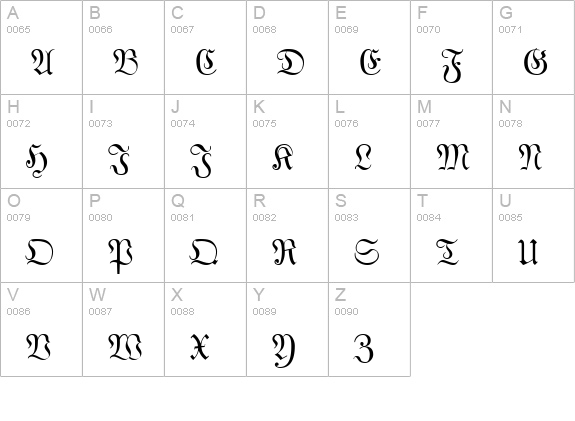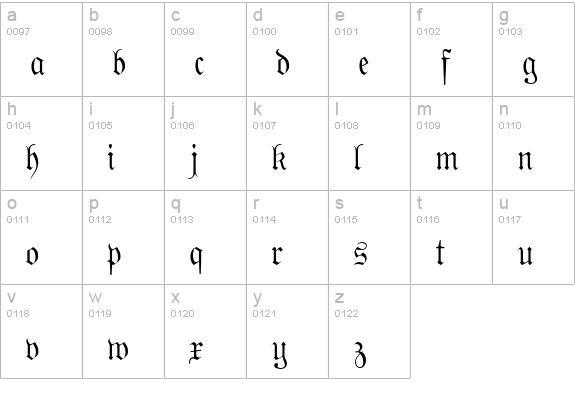
Phraxtured Font Details
Phraxtured font is a stunning display typeface that exudes a sense of edgy sophistication. With its bold and jagged letterforms, this font is perfect for projects that demand attention and make a lasting impact. The unique and fractured design of Phraxtured font gives it a distinct and memorable appearance, setting it apart from other fonts in its category. What makes Phraxtured font even more appealing is that it is free to download at FontsMarket.com. This means that designers and creatives can freely access this remarkable font without any cost. Whether you're working on a poster, logo, or any creative project, Phraxtured font will add a touch of originality and flair. The versatility of Phraxtured font allows it to be used in various design contexts. Its bold and rugged style is perfect for grunge-inspired designs, while its sharp edges and attention-grabbing presence make it ideal for modern and futuristic projects. This font is designed to captivate and engage the viewer, making it a valuable asset in any designer's toolkit. The attention to detail in the design of Phraxtured font is evident in every character, ensuring that each letter contributes to the overall aesthetic appeal. With its strong visual impact, this font effortlessly commands attention and establishes a unique visual identity for any project. Whether you're a professional designer or just starting out, Phraxtured font provides a visually striking and professionally crafted typeface that will elevate any design. And the best part? It's free to download at FontsMarket.com, allowing you to access this remarkable font without any financial burden. So why wait? Explore the bold and captivating world of Phraxtured font today and unleash your creativity. Download it for free at FontsMarket.com and elevate your designs to new heights.